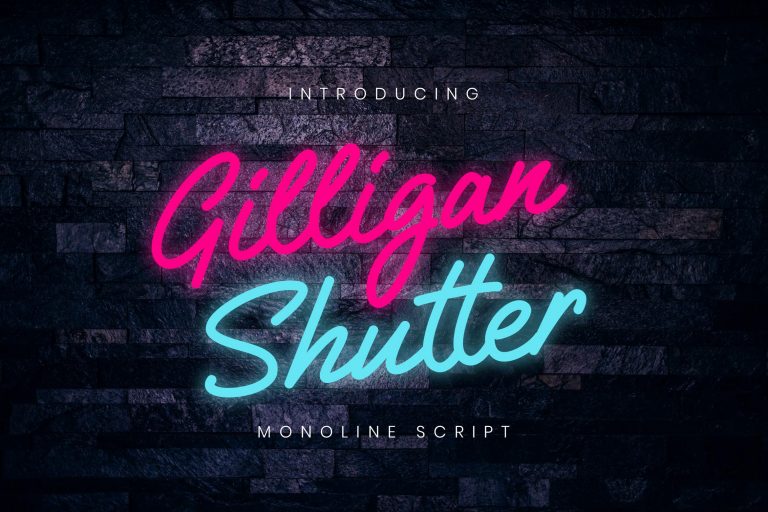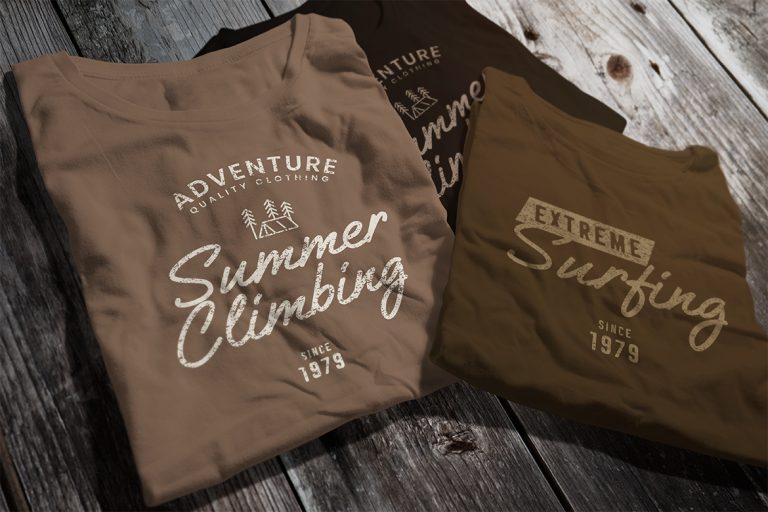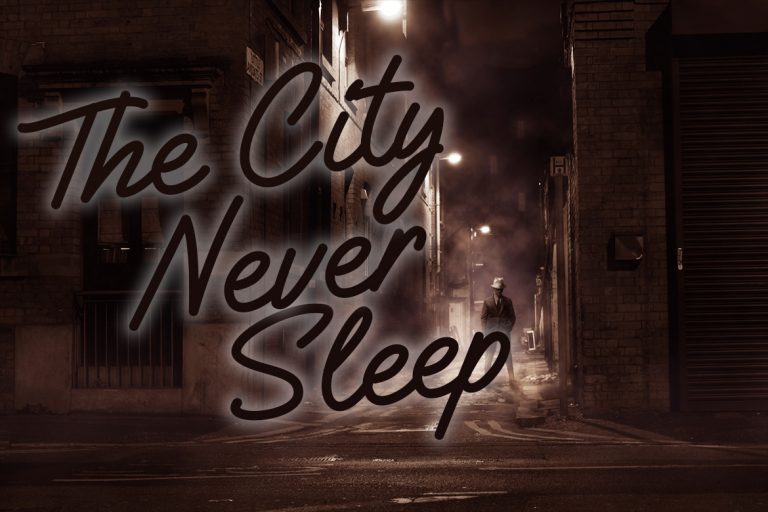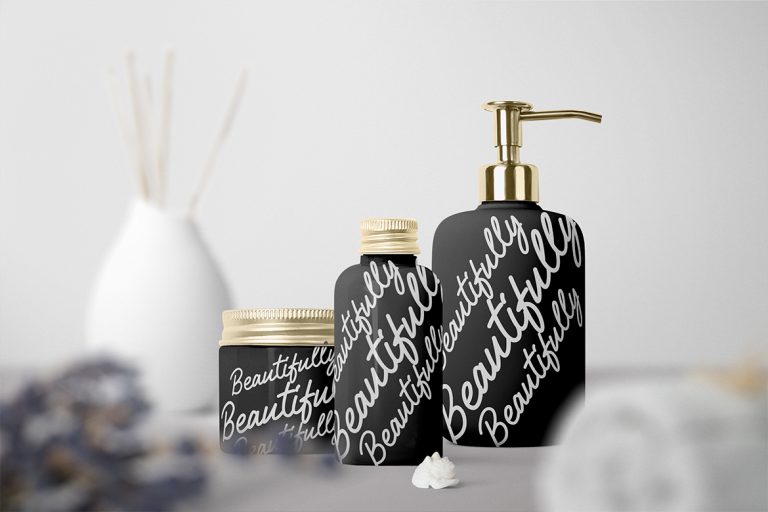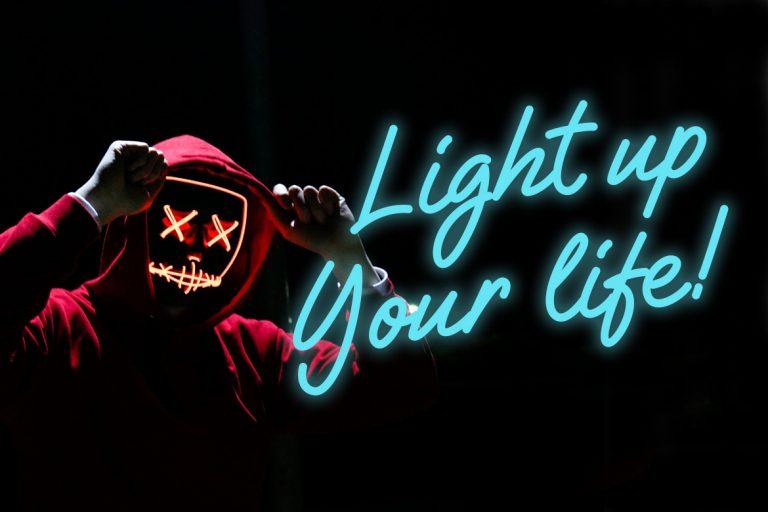
Gilligan Shutter Monoline
Gilligan Shutter Monoline is a sophisticated signature monoline bold collection that give natural lettering for your latest project.
Gilligan Shutter Monoline is perfect for branding projects, logo, wedding designs, social media posts, advertisements, product packaging, product designs, label, photography, watermark, invitation, stationery and any projects that need handwriting taste.